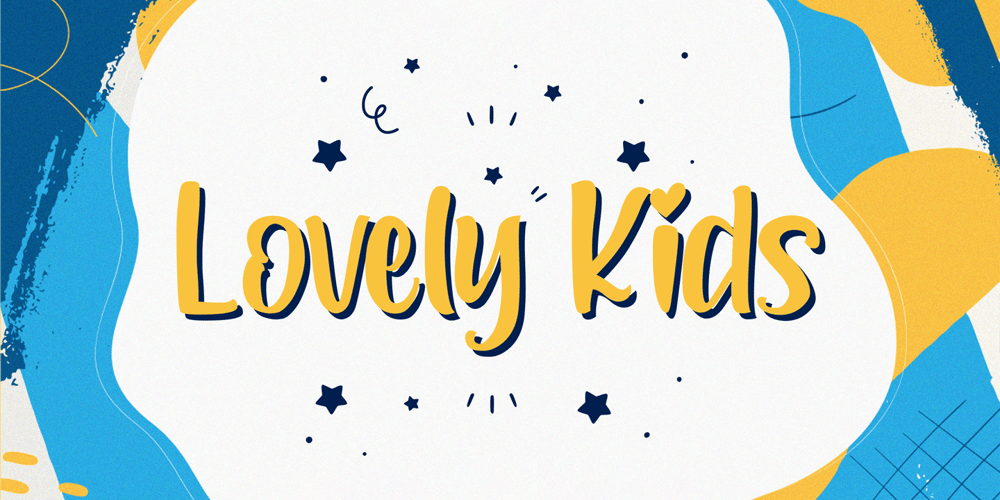
Lovely Kids Font Family was designed by Virgiawan Listanto and published by Stringlabs Creative Studio. Lovely Kids contains 1 styles and family package options. Lovely Kids is a playful font that specially crafted for children, Boys, Kindergarten, Birthday, Kid, Cartoon, and Comic purposes. The Lovely Kids cheerful font contains Modern, Elegant, Creative, Professional and Unique Concept.